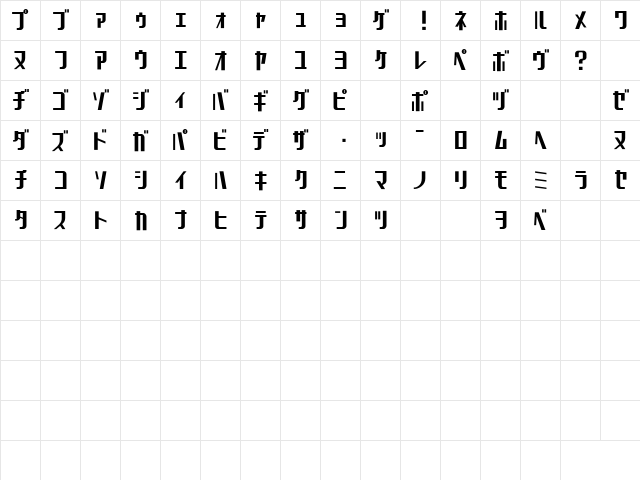
Chicagothic Regular
Design Context for Chicagothic Typeface
Chicagothic takes a clean, functional approach — its unadorned letterforms prioritise legibility and work reliably across screen and print environments.
Font Pairing: Works well alongside a characterful serif or display font that can carry the expressive load while Chicagothic handles the functional copy.
Pro Tip: Use Chicagothic for UI labels, navigation, and short-form body copy where clean legibility is the priority.